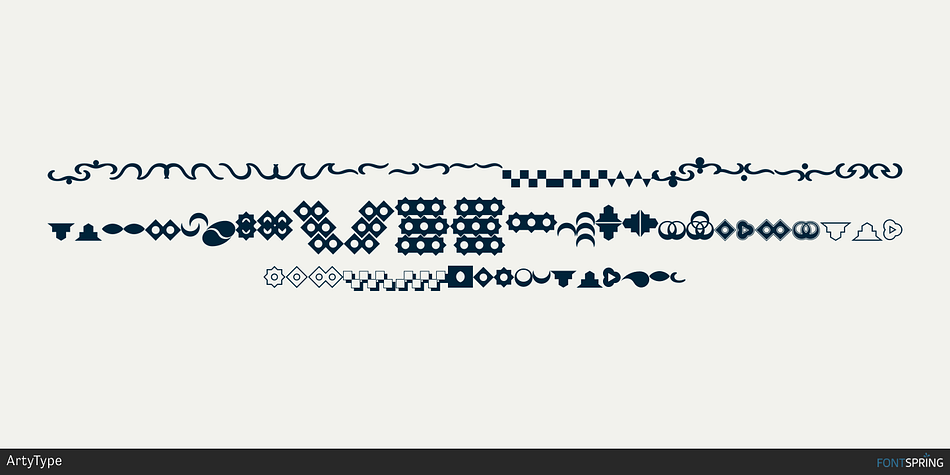
Sanzibar Alphabats Regular
Sanzibar is a dingbat and display sans font family. This typeface has three styles and was published by ArtyType.
Sanzibar Pro is an elegant sans serif typeface in two weights with spurless, medium contrast letterforms and a well balanced mixture of straight, rounded & angled terminal styles.
Sanzibar Pro is an elegant sans serif typeface in two weights with spurless, medium contrast letterforms and a well balanced mixture of straight, rounded & angled terminal styles. These hybrid characteristics lend a slightly exotic appearance to some of the clean, classic forms, hence the decision to use the onomatopoeic pun when naming the font.
Sanzibar’s split personality is further enhanced by the inclusion of swashed and stylistic alternates which let the user embellish and personalise text settings with ease, changing the dynamic of any design or document instantly. This ability to morph itself on the fly is a key characteristic of Sanzibar, shapeshifting from classic to flamboyant styling via the extensive glyph palette.
Also included are the “Alphabats”, a suite of ornaments, dingbats and symbols that provide an extra decorative accompaniment to the alphanumeric glyphs, perfect for space dividers, borders and stylistic adornment. The Alphabats are also available as a standalone free font.